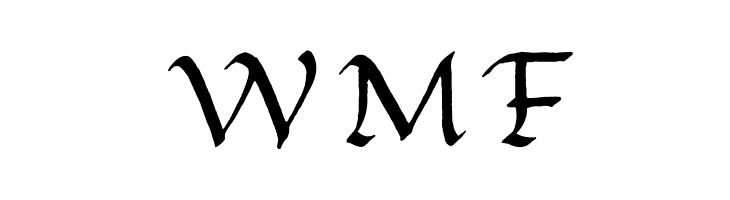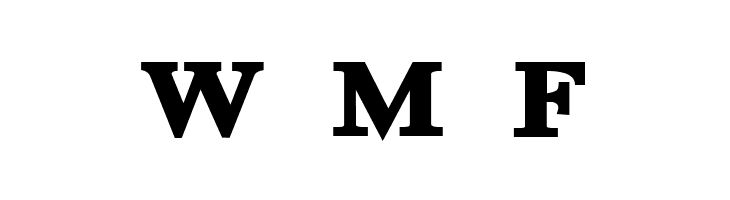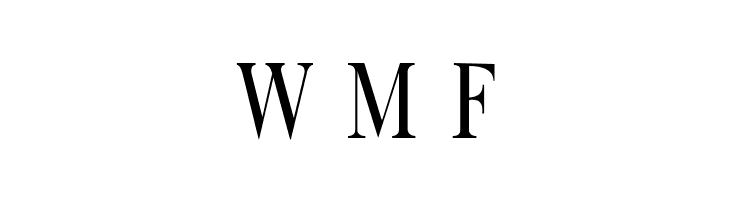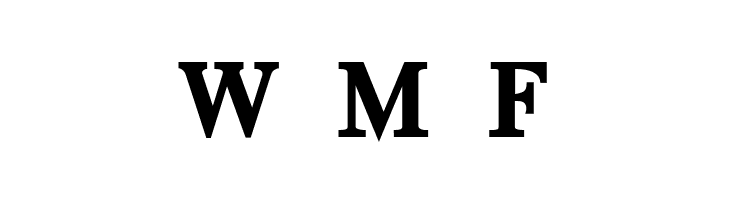
A classic, calligraphic font with medium contrast and elegant, flowing strokes.
A bold and expressive script font with smooth, flowing curves.
A classic serif typeface with high contrast and sharp serifs, exuding elegance and sophistication.
A bold serif font with strong strokes and a modern twist.
A bold, classic serif font with strong strokes and elegant serifs.
A bold, italic serif font with strong presence and elegant serifs.
A classic serif font with bold, elegant serifs and a modern touch.
A classic serif font with an elegant italic slant and extended width.
An elegant serif typeface with a classic italic style and refined stroke contrast.
A refined serif typeface with high contrast and elegant serifs.